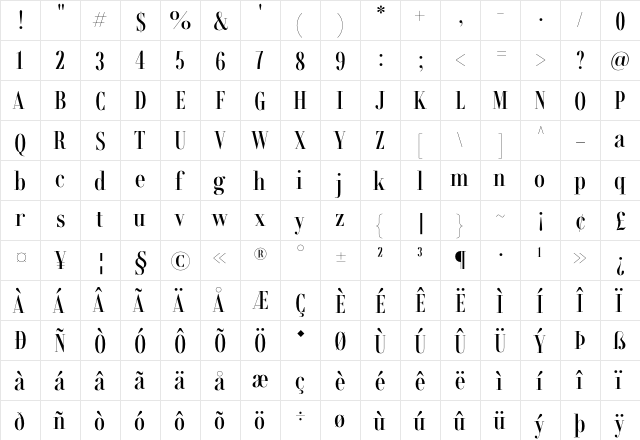
Rondal Semibold
| Designer | Daler Mukhiddinov |
Design Context for Rondal Typeface
Rondal takes a measured approach to typography — its balanced proportions and neutral character make it a reliable workhorse for both digital and print work. The heavy weight commands attention and anchors typographic hierarchies.